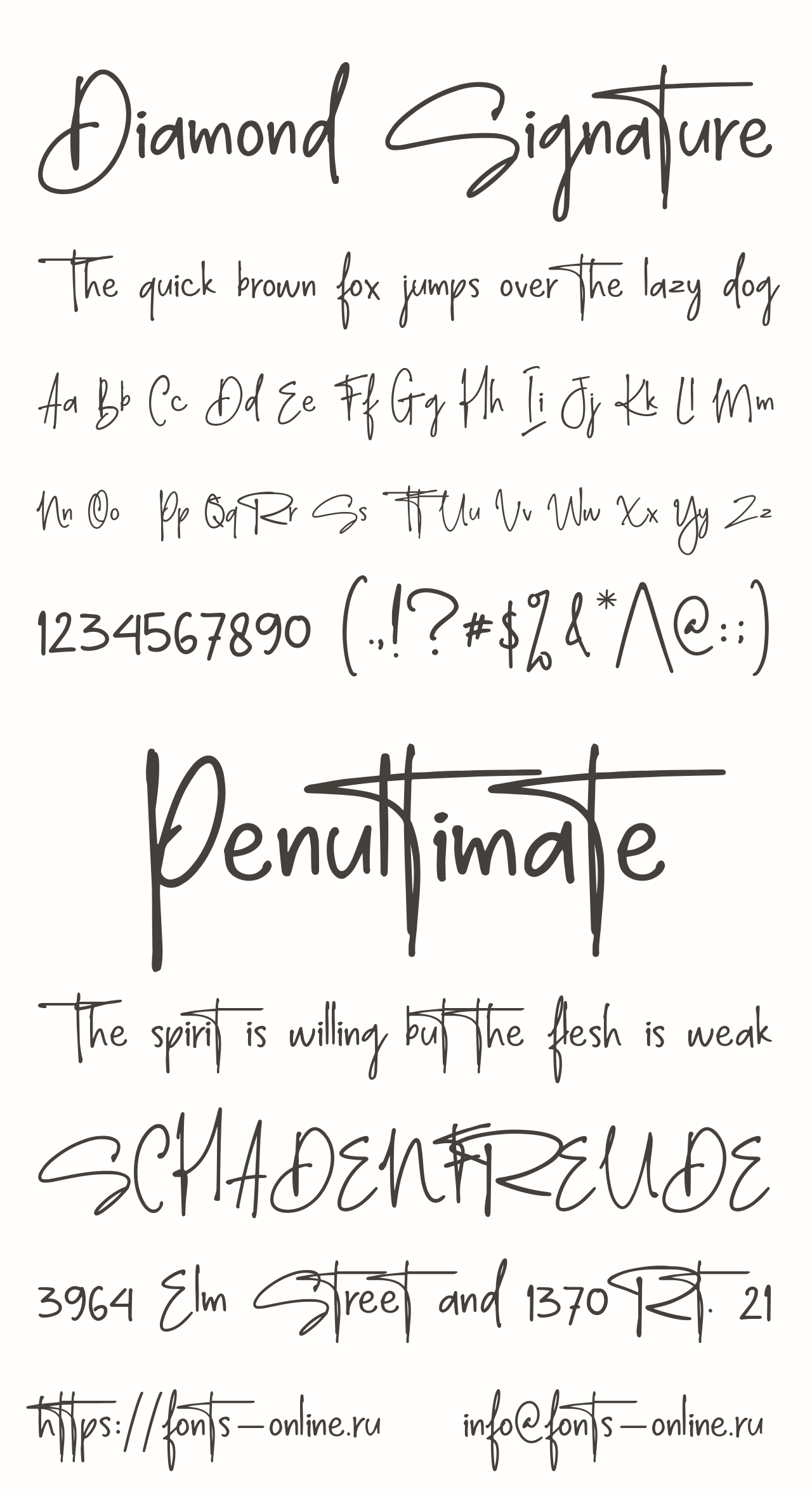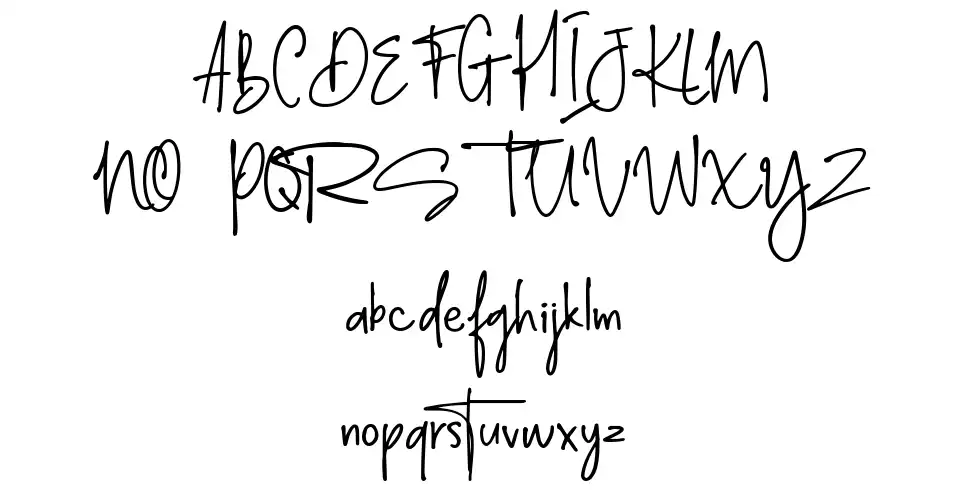
Diamond Signature Font Diamond Signature a modern script font with signature style Discover the brand new Signature Handwritten Font Style an elegant and natural font designed to resemble natural handwriting as closely as possible
Diamond Signature Font
Diamond Signature Font By Scratch Design Bali FontRiver
Diamond Signature font family designed by Gitayogi has a total of 1 different styles You can download the Diamond Signature font to your computer or use it on your website Please Diamond Signature is a flowing handwritten font described by an elegant touch perfect for your favorite projects Fall in love with its incredibly distinct and timeless style and use it to create
The Diamond Signature Regular font contains 168 beautifully designed characters Customize your own preview on FFonts to make sure it s the right one for your designs Diamond Signature font is a creative handwritten typeface designed by Gitayogi of Scratch Design This Font is for personal use only By installing or using this font you agree to the
Diamond Signature a modern script font with signature style Discover the brand new Signature Handwritten Font Style an elegant and natural font designed to resemble natural handwriting as closely as possible
Diamond Signature Font - Diamond Signature is a chic refined script font that emanates sophistication and elegance Its stylish alternates and ligatures make this font the perfect match for any project